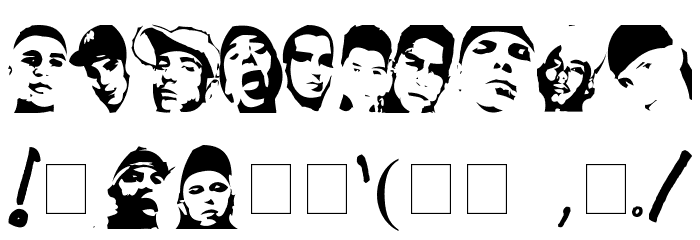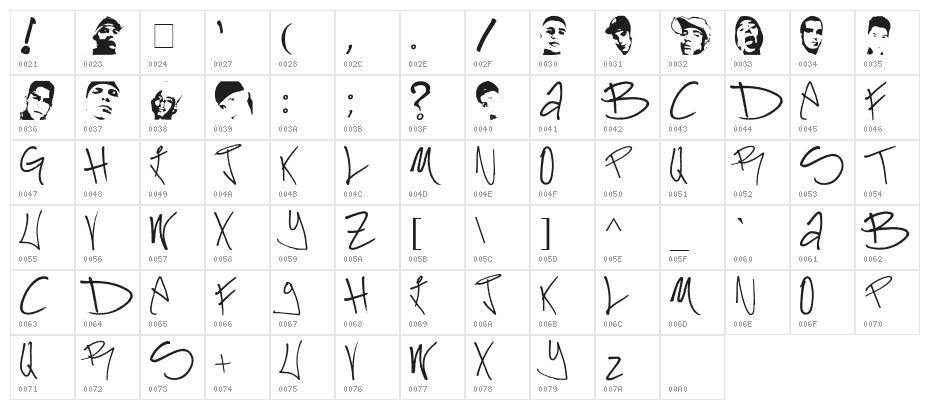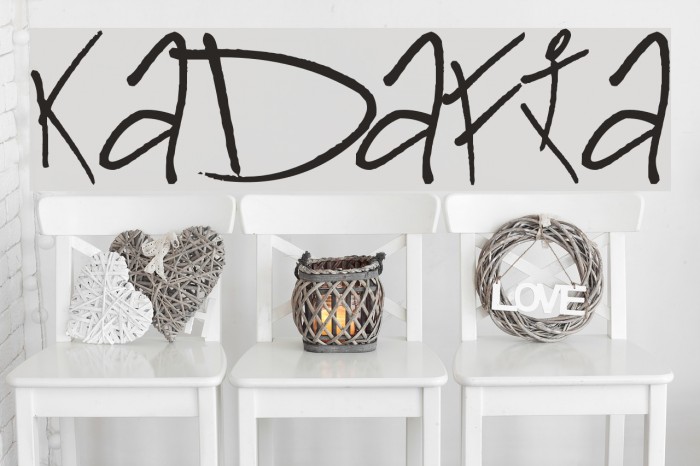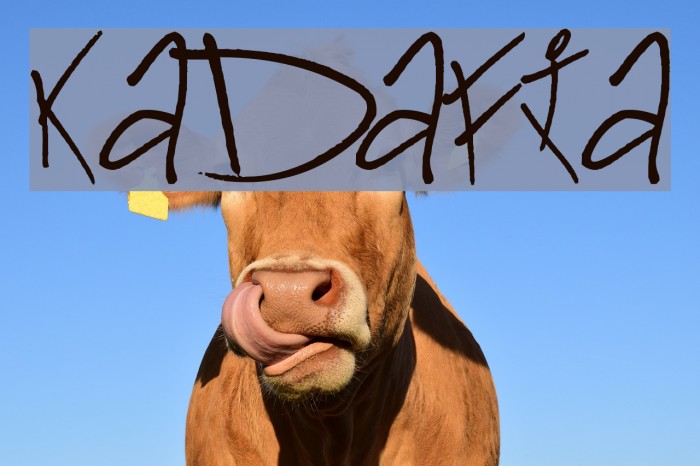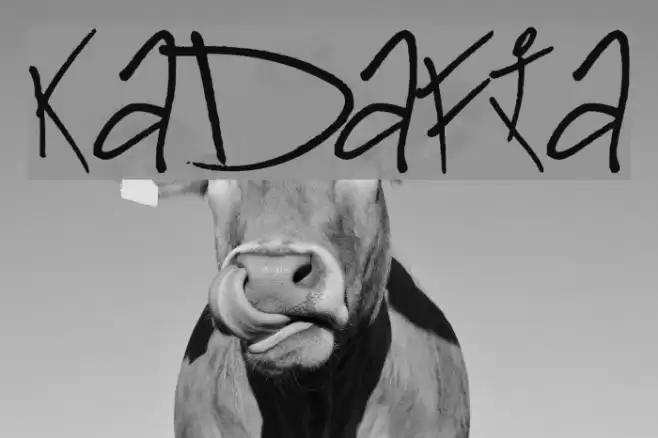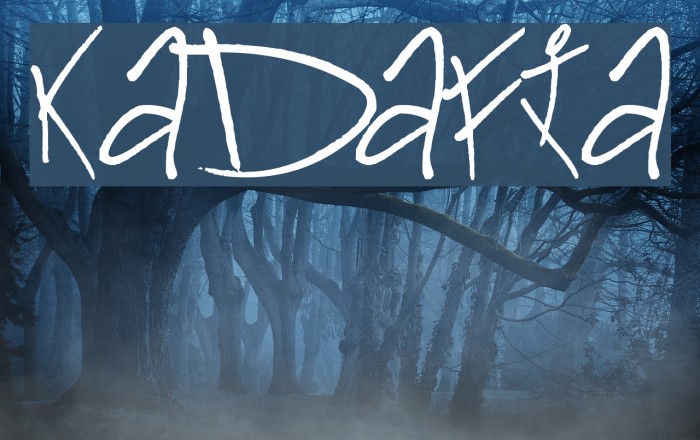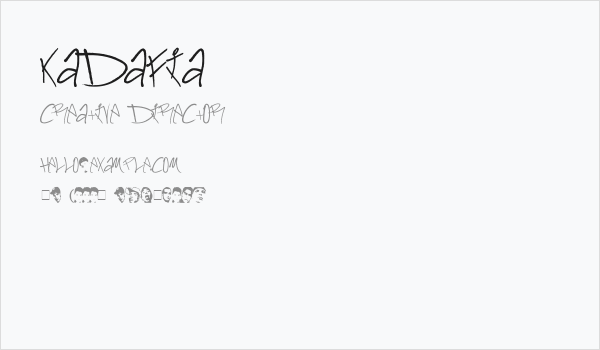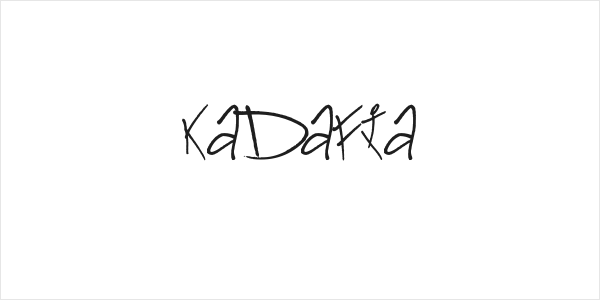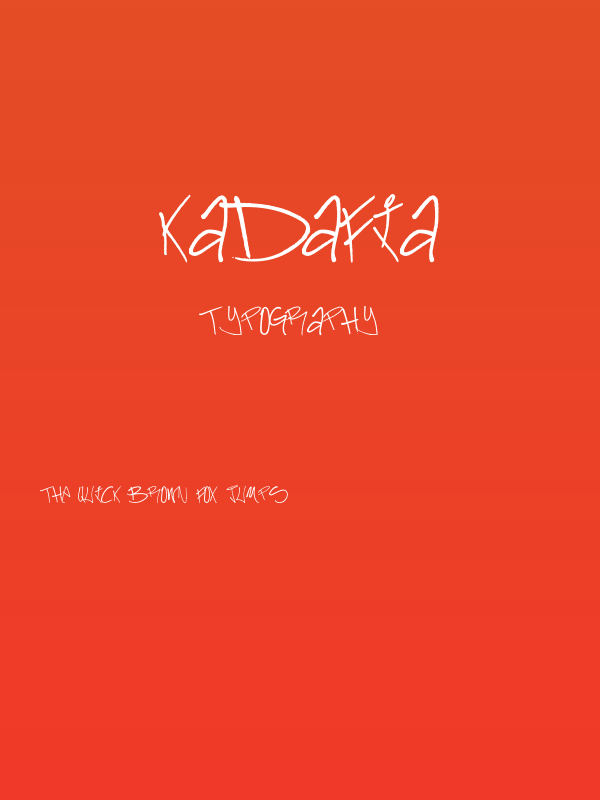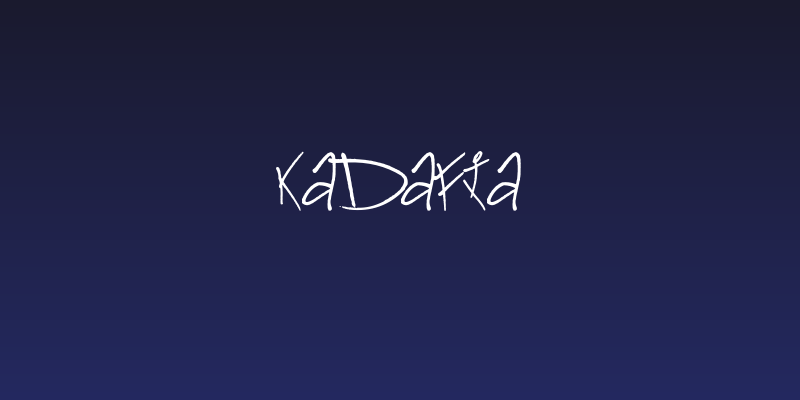
Kadafia Font
Kadafia Description
This font exhibits a dynamic and expressive style, characterized by its fluid, handwritten appearance. The letters are crafted with a sense of motion and energy, featuring varying stroke widths that create a lively and informal aesthetic. The uppercase and lowercase letters maintain a consistent style, with elongated and slightly exaggerated forms that enhance the font's unique personality. The numbers and special characters are designed to complement the overall look, ensuring a cohesive visual experience. This font is ideal for projects that require a personal touch or a creative flair.
| Overall Style | Urban, Creative, Expressive |
| Use Case | Logos, Posters, Artistic projects |
| Proposed Projects | Ideal for graffiti art, urban-themed designs, album covers, and creative branding. |